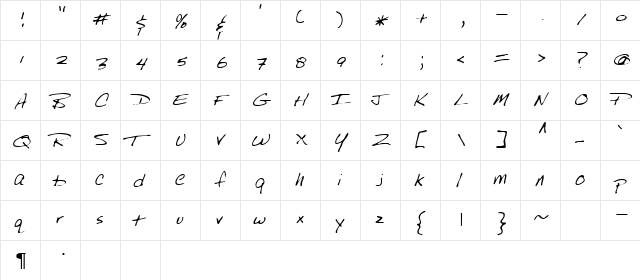
Bobbo Regular
Design Context for Bobbo Typeface
Bobbo is a composed and adaptable typeface that performs quietly and consistently across a wide range of design contexts.